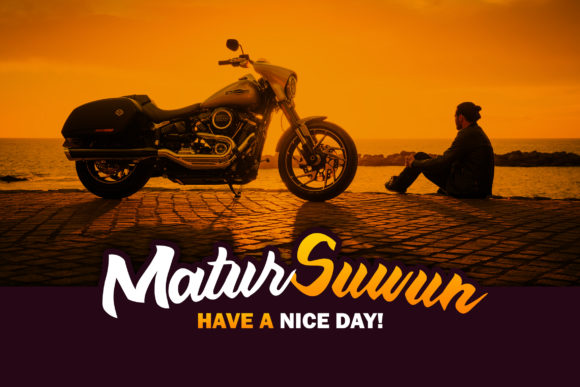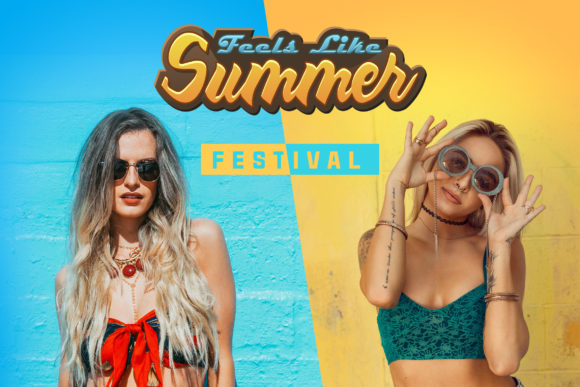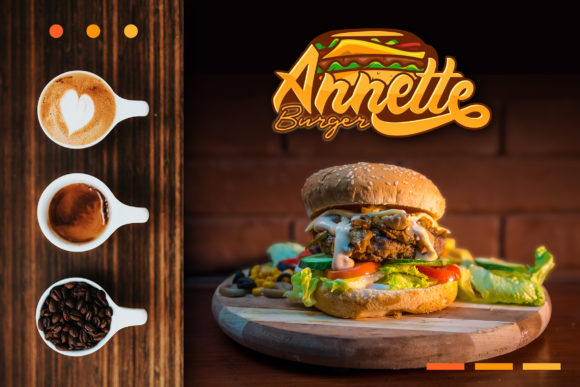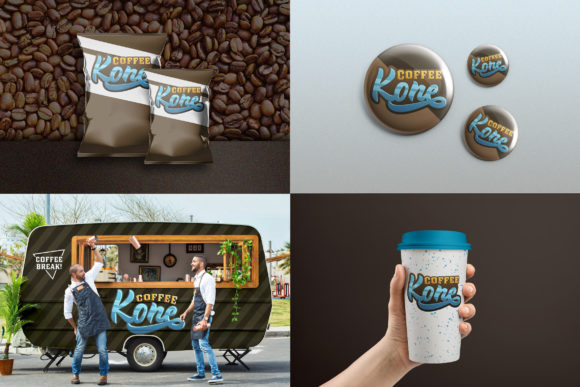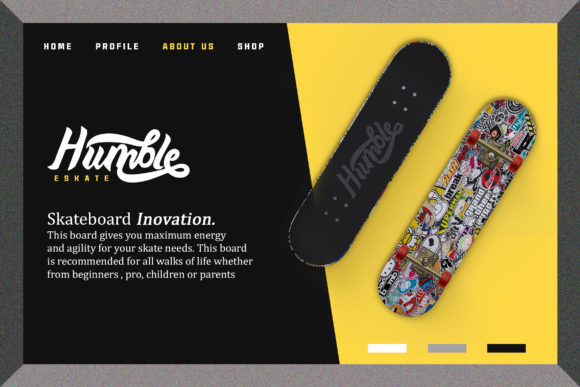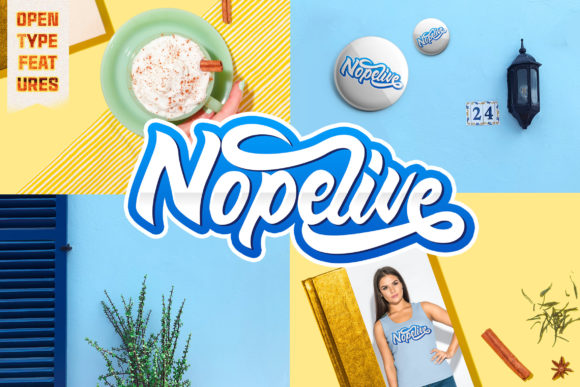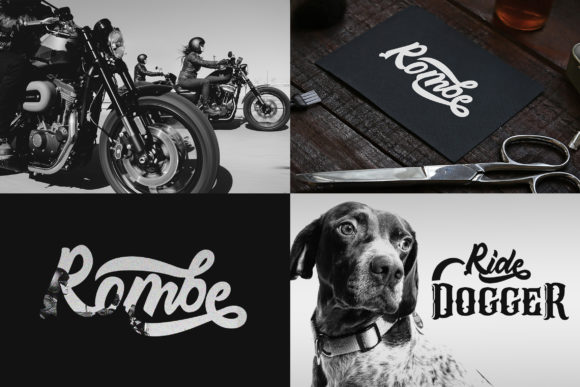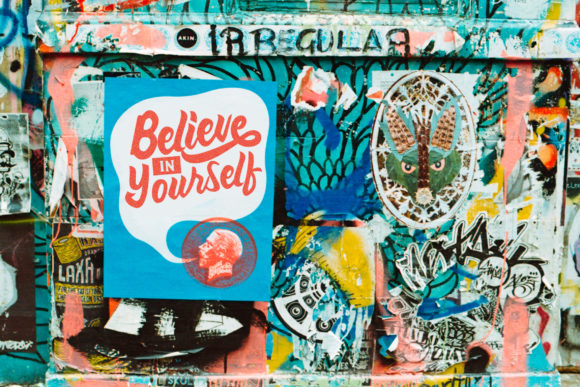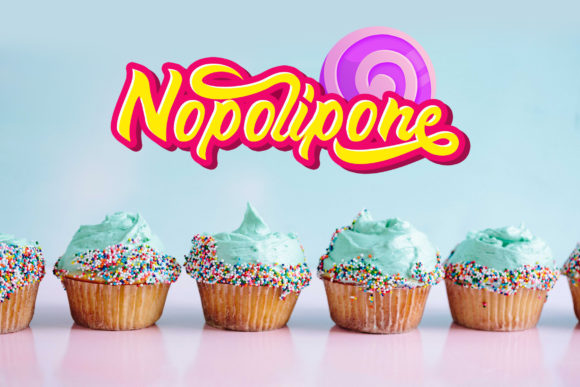
HomeScript FontsAngelive Font Script Fonts Angelive Font FacebookXPinterestWhatsApp Angelive Font Poster 2 Angelive Font Poster 3 Angelive Font Poster 4 Angelive Font Poster 5 Angelive Font Poster 6 Angelive Font Poster 7 Angelive Font Poster 8 Angelive Font Poster 9 Angelive Font Poster 10 About Angelive Font Angelive is a unique and powerful handwritten font with a friendly feel. Get inspired by its vintage look! DOWNLOAD ON CREATIVE FABRICAThis font is sold and delivered by Creative Fabrica. Font Canyon may earn a commission if you buy through this link. People also explored Honey Carrot Font Santoriny Font Qypograf Font Madeleine Font Asoka Font Balianpu Font Mio Amore Font Fabullous Script Font Avocado Creamy Font 313 0 TagsAngelive Font Previous articleYoujelly FontNext articleKastella Font LEAVE A REPLY Cancel reply Comment: Please enter your comment! Name:* Please enter your name here Email:* You have entered an incorrect email address! Please enter your email address here Website: Save my name, email, and website in this browser for the next time I comment. Personal Use Free Vembazax Rm Personal Use Free Read more about this font Built Tilting Personal Use Free Read more about this font Lovetle Personal Use Free Read more about this font Helsinki Personal Use Free Read more about this font BLOG The 10 Best Handwriting Fonts to Add Personality to Your Designs 10 of the Best Handwriting Fonts for Adding Personality to Your Designs There will undoubtedly be no other better choice than handwriting fonts to give... Fonts That Capture the Spirit of New York City Free vs Paid Fonts: Why Investing in Premium Fonts Is Worth It How to Cut Any Font on Cricut: Convert a Font to SVG (Free)